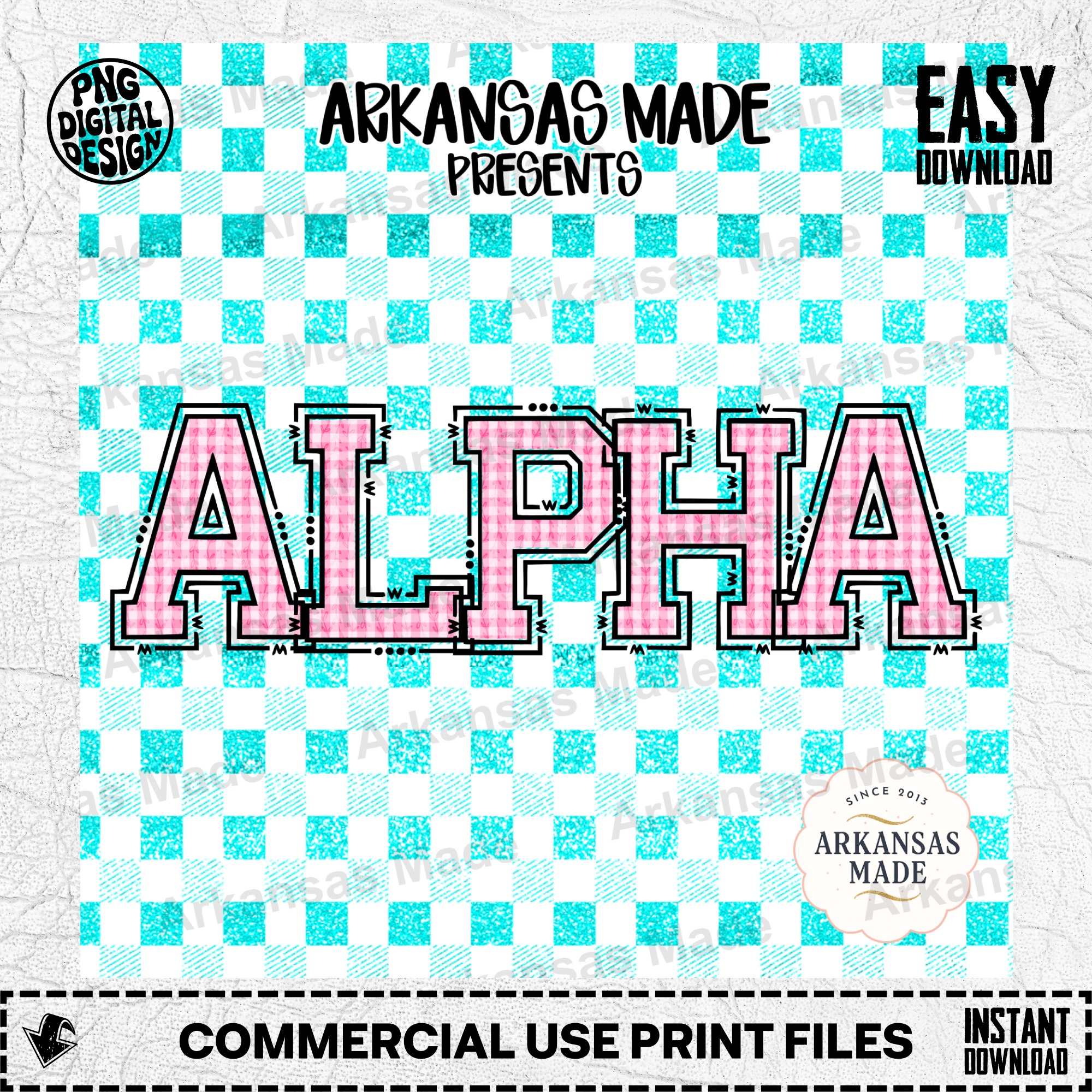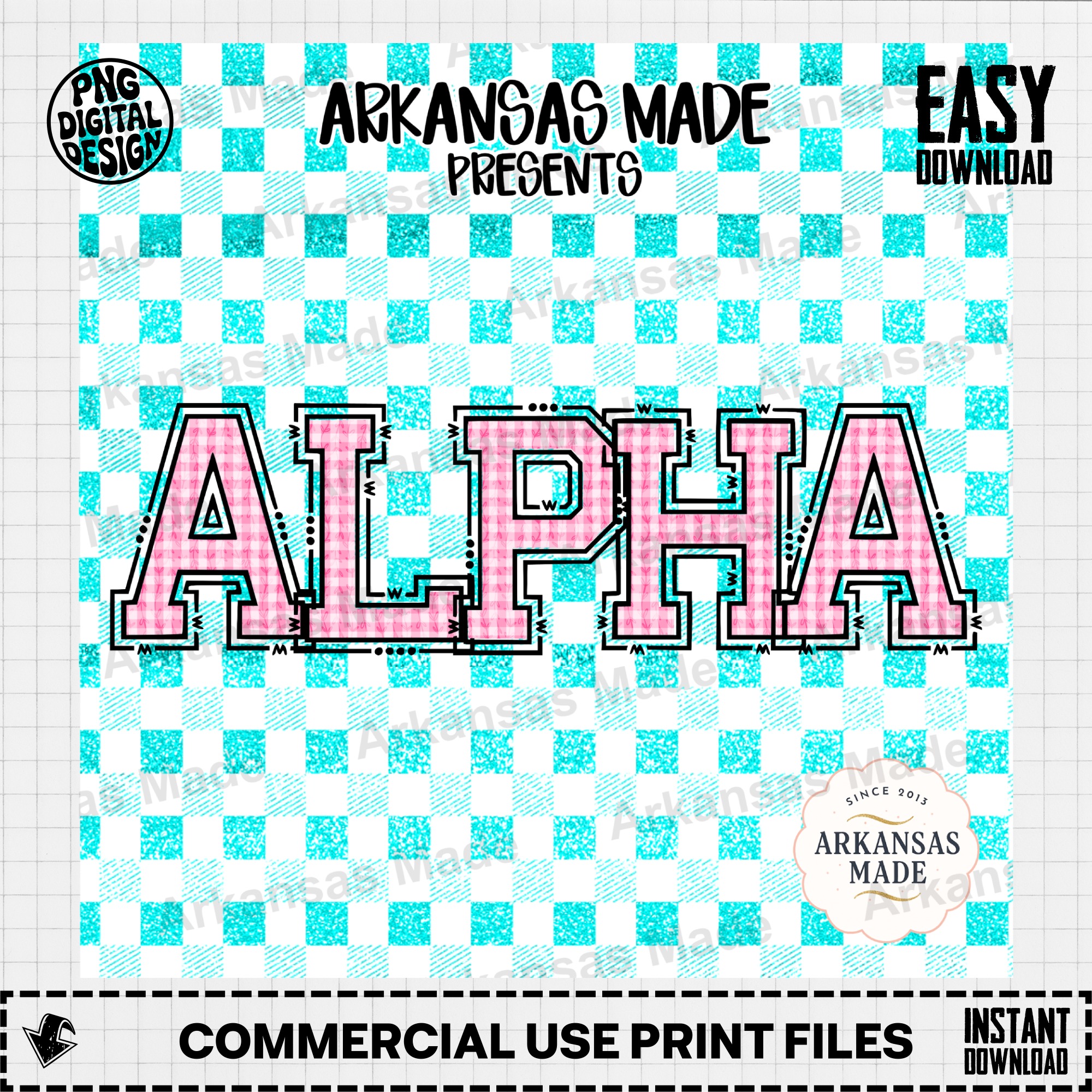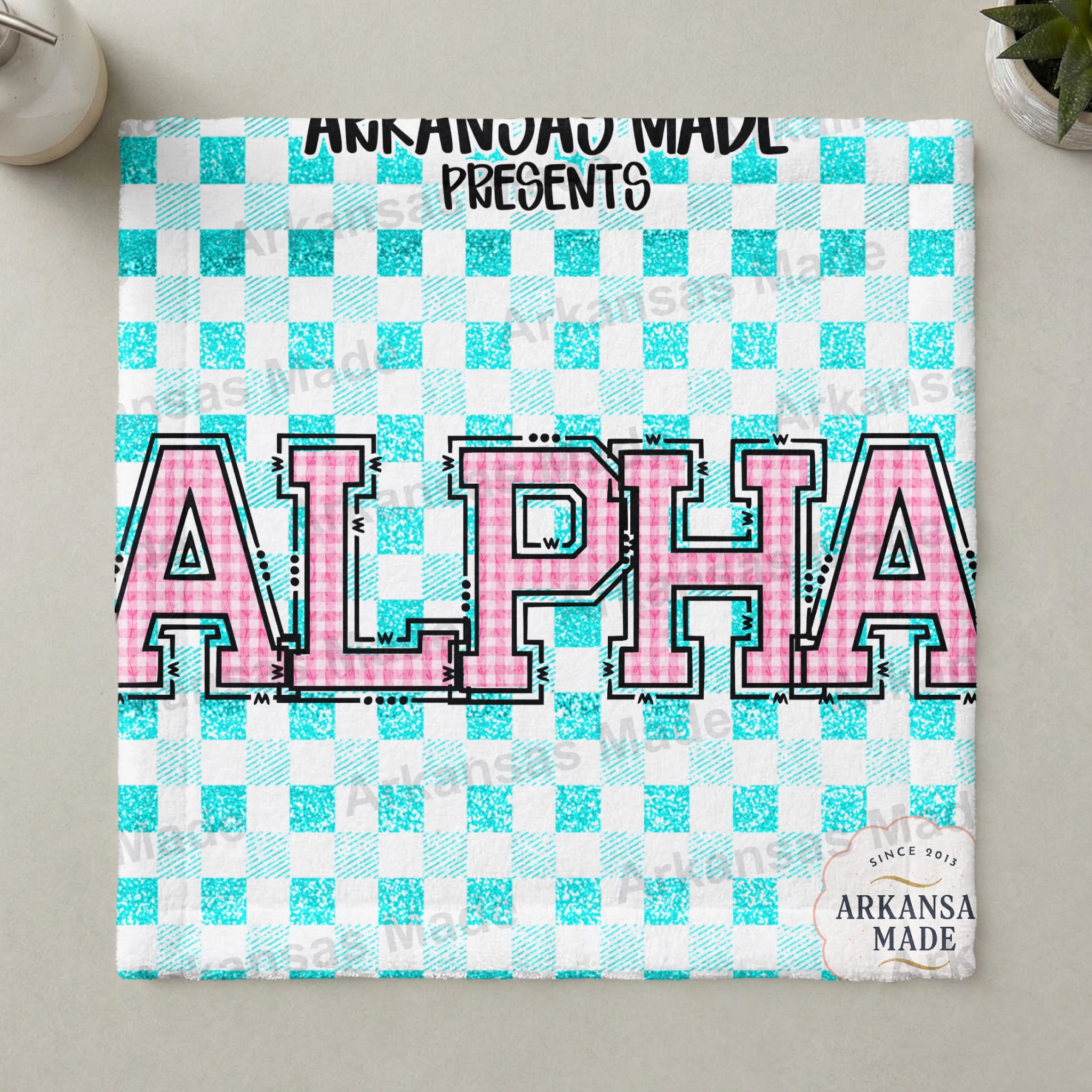
Digital Download Alpha Set | Pink Gingham Collegiate Letters | Varsity Greek Sorority Font | Faux Teal Glitter Pattern PNG | Craft File
Elevate your projects with this vibrant Digital Download Alpha Set, featuring bold pink gingham collegiate letters with a faux teal glitter checkerboard pattern. Perfect for sorority crafts!
This trendy varsity-style Greek alphabet collection is designed for the modern crafter and sorority sister. Unleash your creativity on custom apparel, personalized gifts, or unique decorations for Bid Day, graduation, or special events. A must-have for DIY enthusiasts and anyone embracing a cheerful, preppy aesthetic.